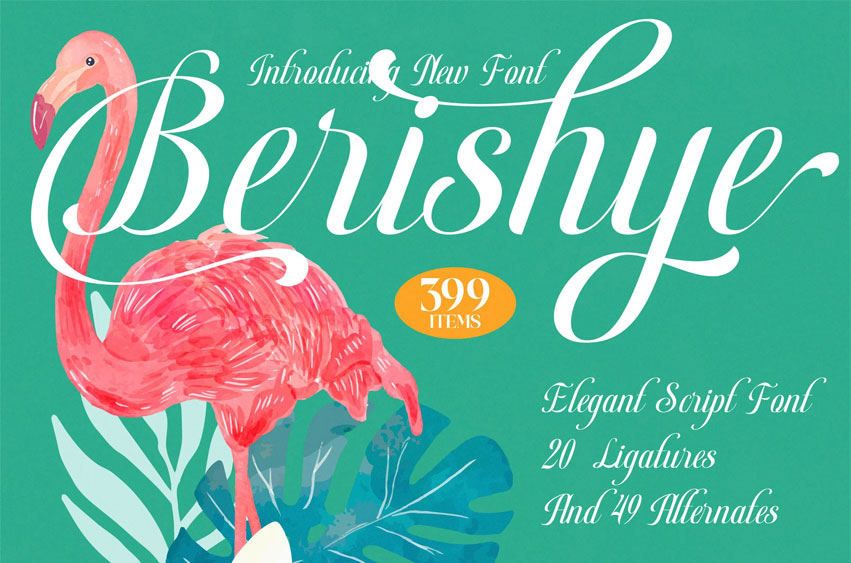
Berishye Font is an elegant script font with fluid strokes, refined curves, and a bright expressive personality, crafted to elevate branding, packaging, wedding stationery, boutique logos, social media design, and editorial styling.
Featuring 20 smooth ligatures and 49 stylistic alternates, this typeface gives designers a versatile set of letter variations for creating natural handwritten flow and luxurious visual rhythm. With 399 total glyphs and multilingual support, Berishye delivers both beauty and flexibility, making it a perfect choice for any project that needs a graceful, modern script with artistic charm.